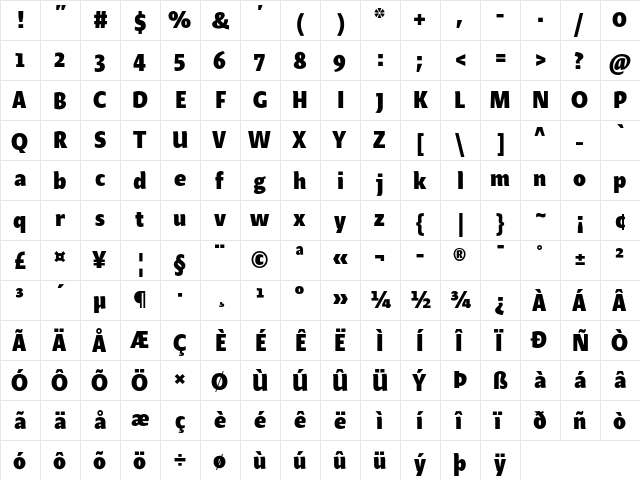
Beret LT Std Bold
| Foundry | Linotype GmbH |
| Designer | Eduardo Omine |
Design Context for Beret LT Std Typeface
Beret LT Std takes a measured approach to typography — its balanced proportions and neutral character make it a reliable workhorse for both digital and print work. The heavy weight commands attention and anchors typographic hierarchies.